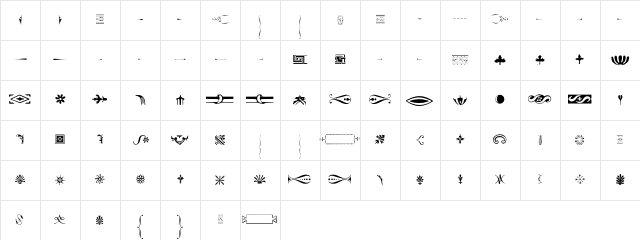
BodoniClassic Ornaments
Style: Ornaments
Design Context for BodoniClassic
BodoniClassic wears its vintage influences proudly, with letterforms that recall mid-century signage, classic packaging, and nostalgia-driven design.
Font Pairing: Combine BodoniClassic with a simple slab or neutral sans - period-accurate companions reinforce the vintage feel without competing for attention.
Pro Tip: Lean into BodoniClassic's period character by pairing it with aged paper textures, muted colour palettes, and vintage illustration styles.